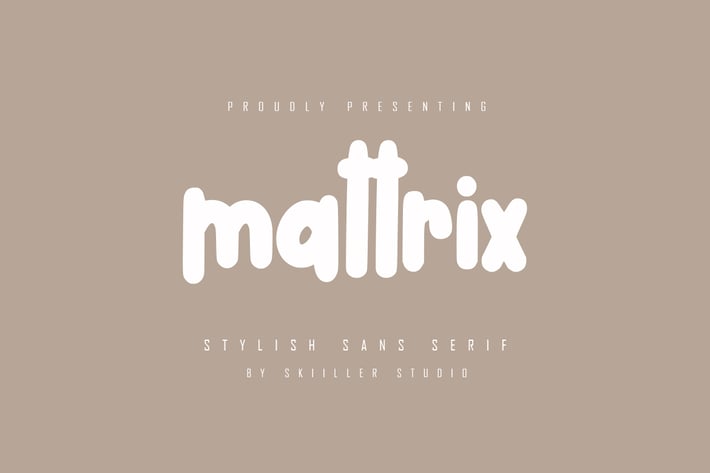
Mattrix - Stylish Sans Serif Font
Mattrix is a cool and techno looking and bold display font. This font is ideal for writing web designs, business cards, or pretty much anything else that requires a unique touch.